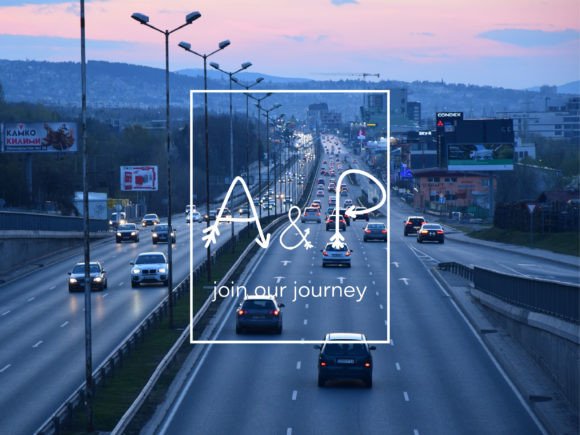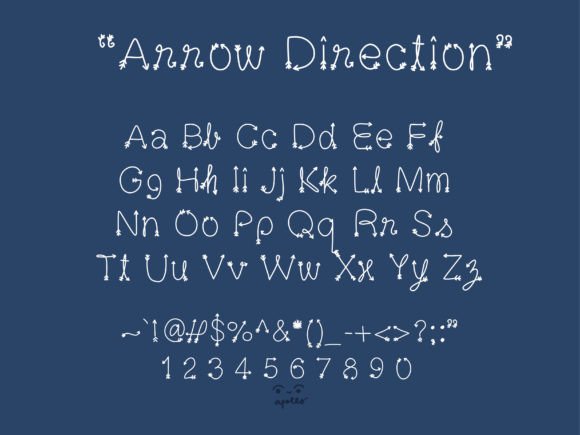
Introducing Arrow Direction Font: The Ultimate Stylish and Cool Handwritten Font
Are you tired of using the same old fonts for your designs? Look no further! Arrow Direction Font is here to revolutionize the way you create stunning visuals. This stylish and cool handwritten font is perfect for designers and crafters who want to add a personal touch to their work. With its natural and unique style, Arrow Direction Font is incredibly versatile and can be used for a wide range of designs, from travel brochures to road signs, and everything in between.
The Unique Style of Arrow Direction Font
Arrow Direction Font boasts a distinctive handwritten style that sets it apart from other fonts. Its natural and effortless look makes it perfect for designs that require a personal touch. The font’s unique style is characterized by its flowing lines, subtle imperfections, and charming irregularities. This makes it an excellent choice for designers who want to create visuals that are both stylish and approachable.
Endless Design Possibilities with Arrow Direction Font
The only limit to using Arrow Direction Font is your imagination! This versatile font can be used for a wide range of designs, including:
- Travel brochures and guides
- Road signs and directional signs
Why Choose Arrow Direction Font?
So, why should you choose Arrow Direction Font for your designs? Here are just a few reasons:
- Unique style: Arrow Direction Font has a distinctive handwritten style that will set your designs apart from the rest.
- Versatility: This font can be used for a wide range of designs, from travel brochures to road signs.
- Ease of use: Arrow Direction Font is easy to read and works well in both large and small sizes.
- High-quality: This font is designed with high-quality and clarity in mind, making it perfect for both digital and print designs.
Tips for Using Arrow Direction Font
Here are a few tips for getting the most out of Arrow Direction Font:
- Experiment with different sizes: Arrow Direction Font works well in both large and small sizes, so don’t be afraid to experiment with different sizes to find the one that works best for your design.
- Pair it with other fonts: Arrow Direction Font pairs well with other fonts, so try combining it with a sans-serif font for a stylish contrast.
- Use it for headlines and titles: Arrow Direction Font is perfect for headlines and titles, where its unique style can really shine.
In conclusion, Arrow Direction Font is a stylish and cool handwritten font that is perfect for designers and crafters who want to add a personal touch to their work. With its natural and unique style, this font is incredibly versatile and can be used for a wide range of designs. Whether you’re creating travel brochures, road signs, or social media graphics, Arrow Direction Font is sure to make your designs stand out. So why wait? Download Arrow Direction Font today and start creating stunning visuals that will leave a lasting impression!